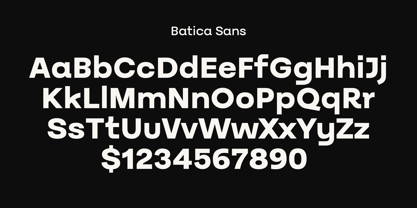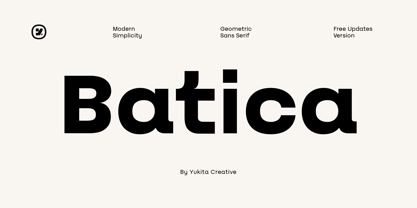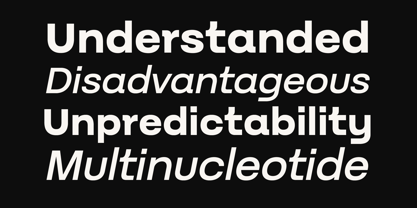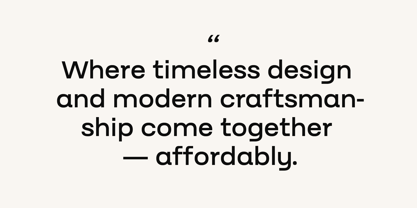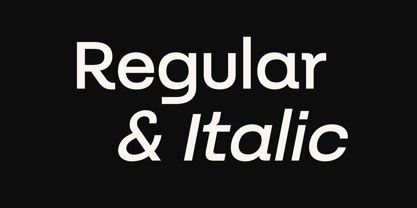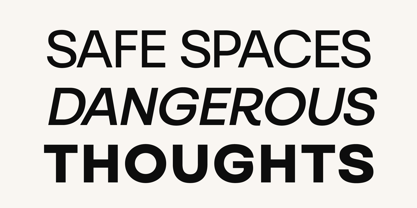
Batica Sans
by Yukita Creative
The Batica Sans Font Family was designed by Yukita Creative and published by Yukita Creative. Batica Sans contains 4 styles and family package options. More about this family
Batica is a clean and modern geometric font family, designed for designers who value simplicity and clarity. Featuring 4 essential styles – Regular, Italic, Bold, and Bold Italic – Batica offers flexibility for a wide range of design projects, from branding and logo design to web and editorial layouts.
With its minimalist construction and balanced proportions, Batica brings a professional and contemporary feel to any creative work. Each character is crafted with precision, making it perfect for modern typography needs in both print and digital formats.